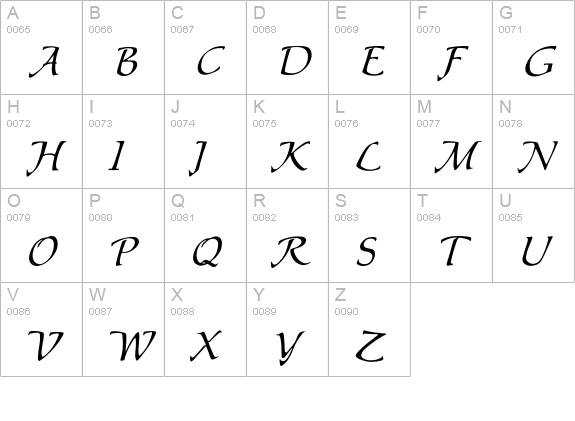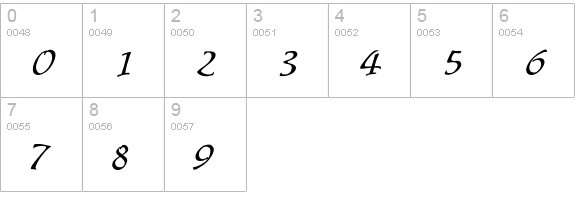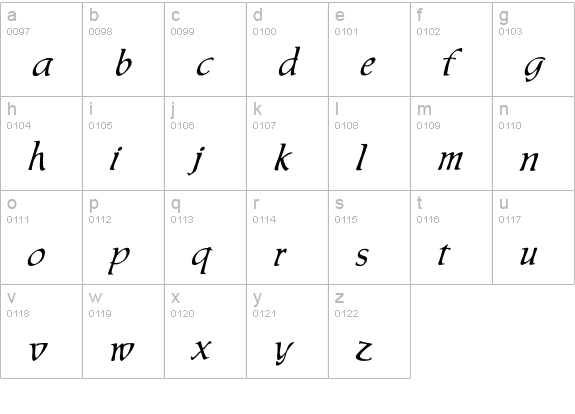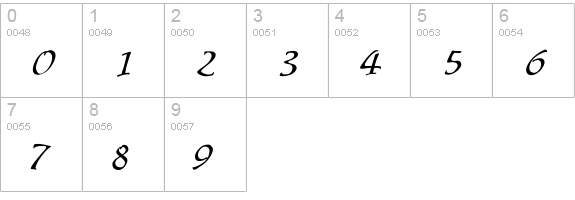
Introducing Ingrid, a stunningly beautiful font that combines elegance with modernity. This font is a perfect choice for those who seek to add a touch of sophistication to their designs. With its sleek and refined lines, Ingrid exudes a sense of grace and sophistication that is sure to captivate any audience. But what sets Ingrid apart from other fonts is not just its aesthetic appeal, but also its accessibility. Ingrid is freely available to download at FontsMarket.com, making it an excellent choice for designers on a budget or those who simply appreciate the value of a free resource. Whether you're working on a logo, a website, or any other design project, Ingrid offers versatility and flexibility. Its clean and legible characters make it suitable for a variety of applications, while its unique style adds a touch of personality to any design. Ingrid's timeless beauty and effortless charm make it a font that will never go out of style. With its freely available download at FontsMarket.com, there's no reason not to add this gem to your font collection. So why wait? Download Ingrid today and elevate your designs to new heights of elegance and professionalism.